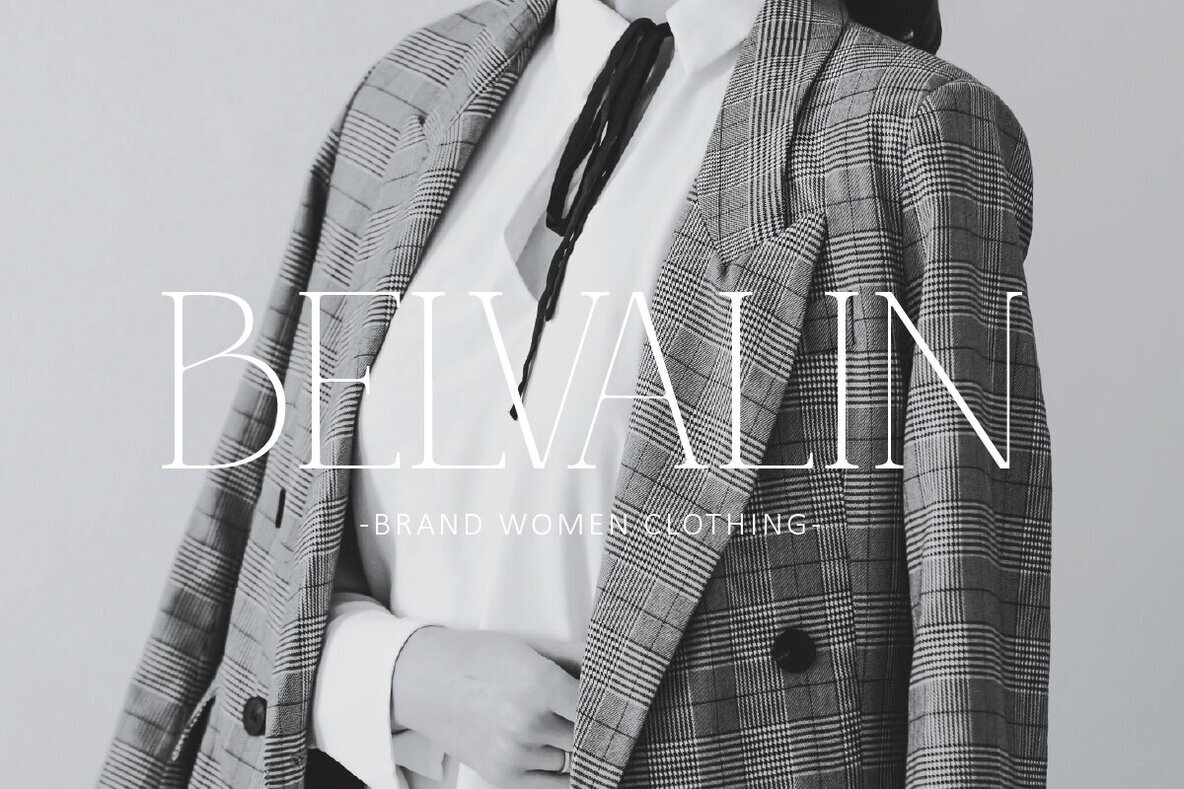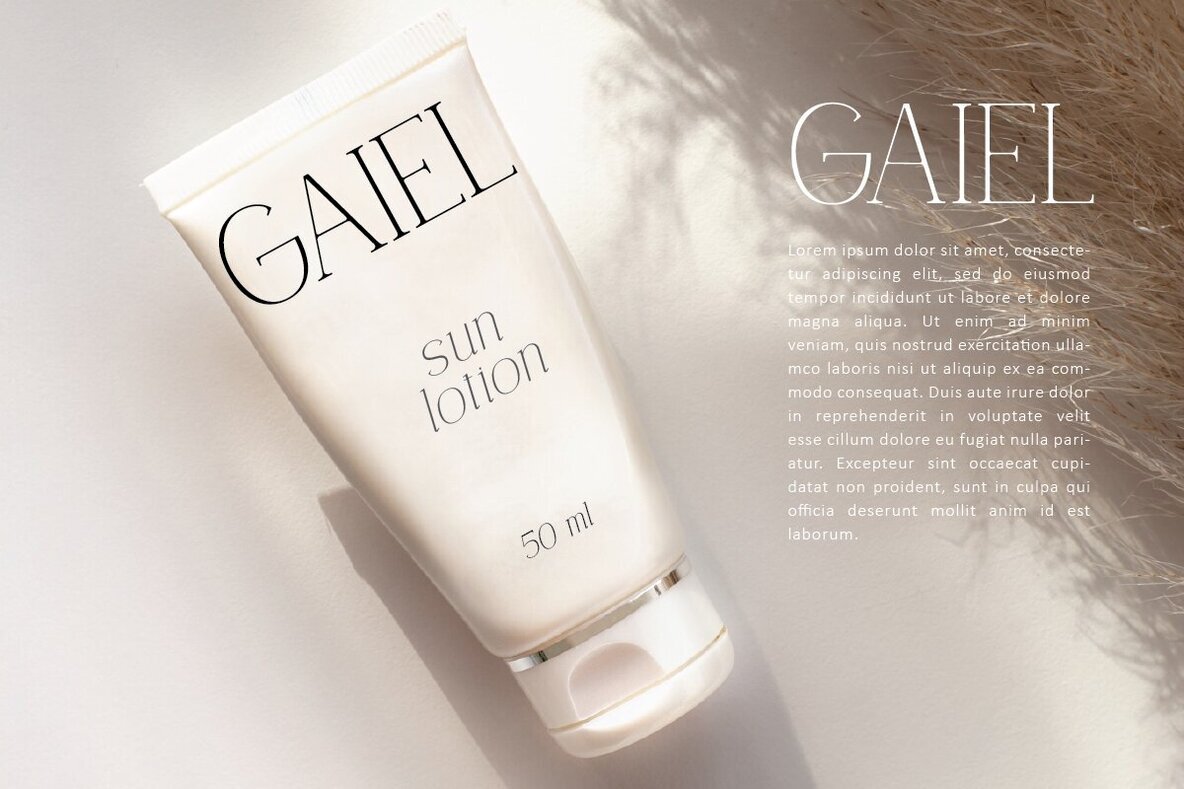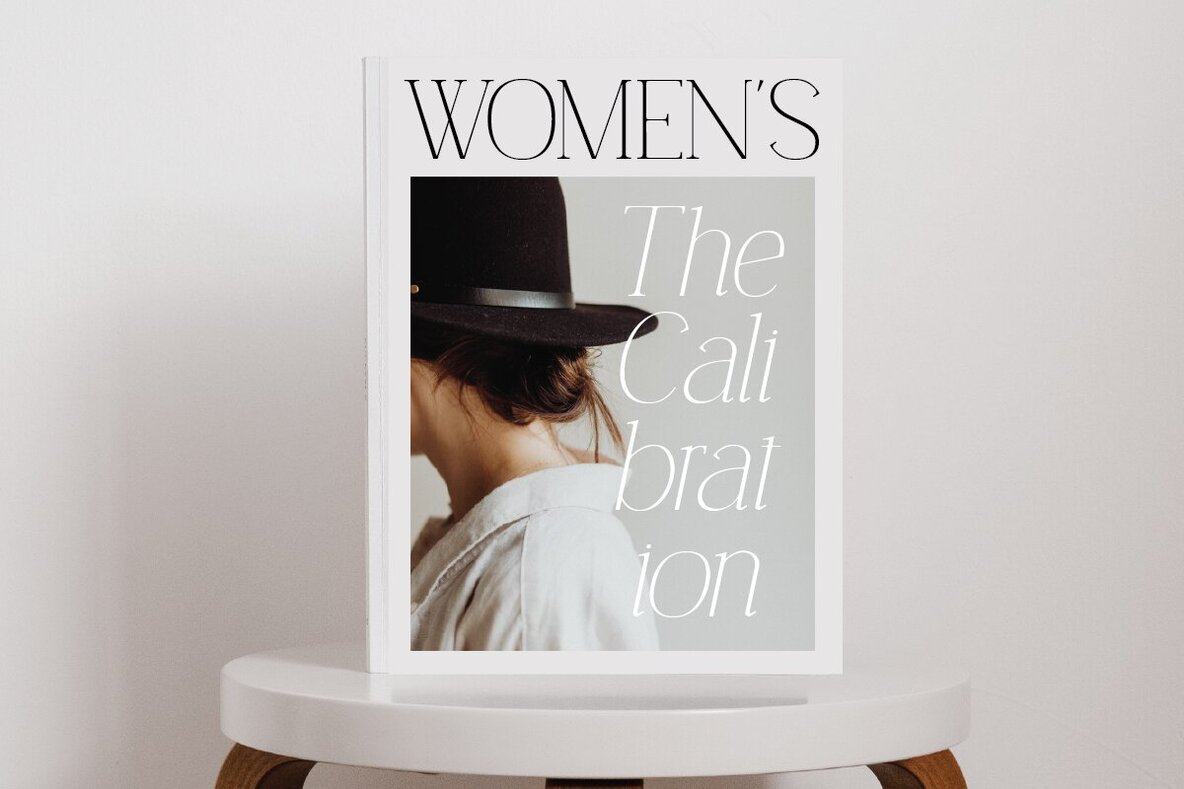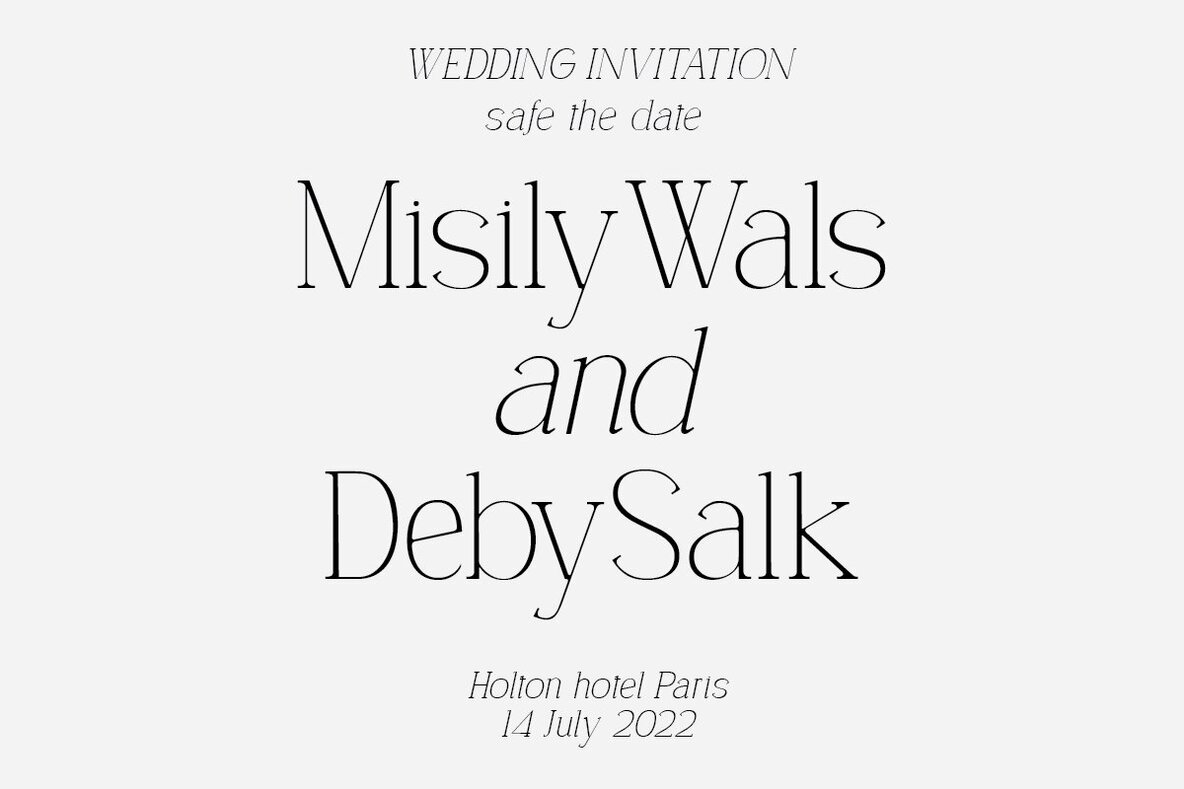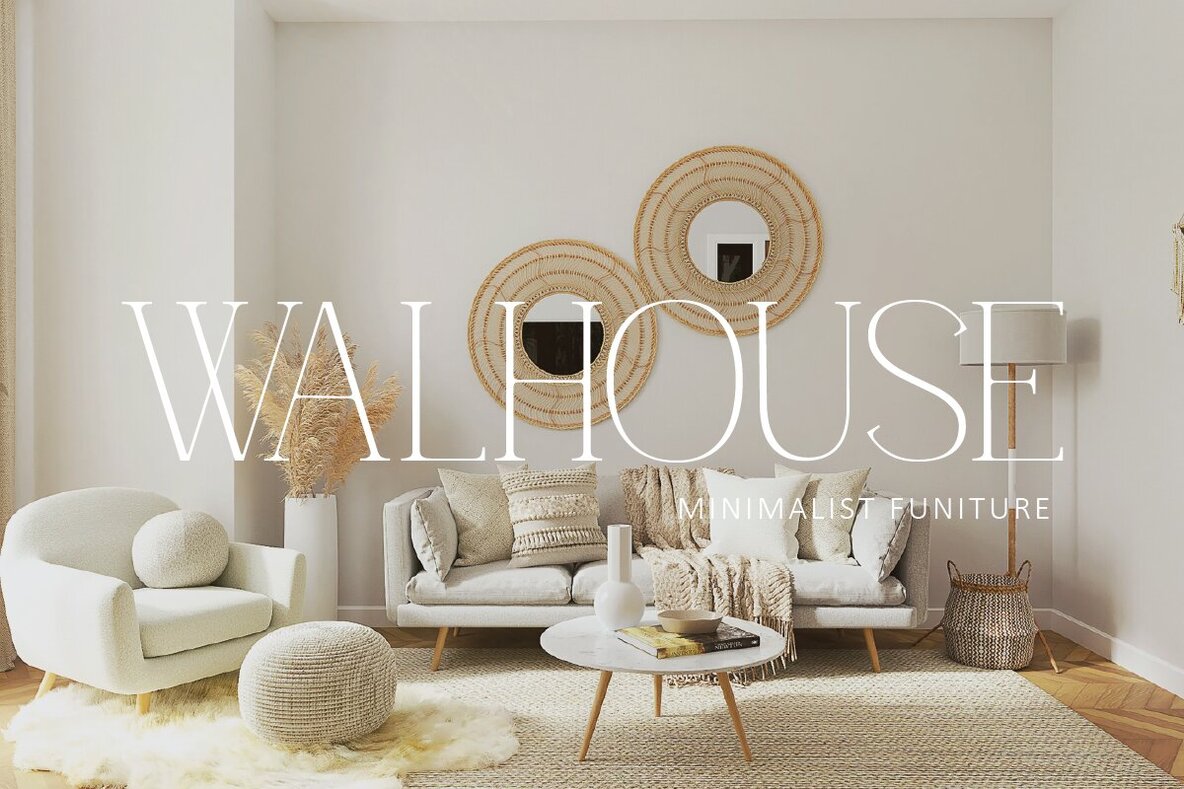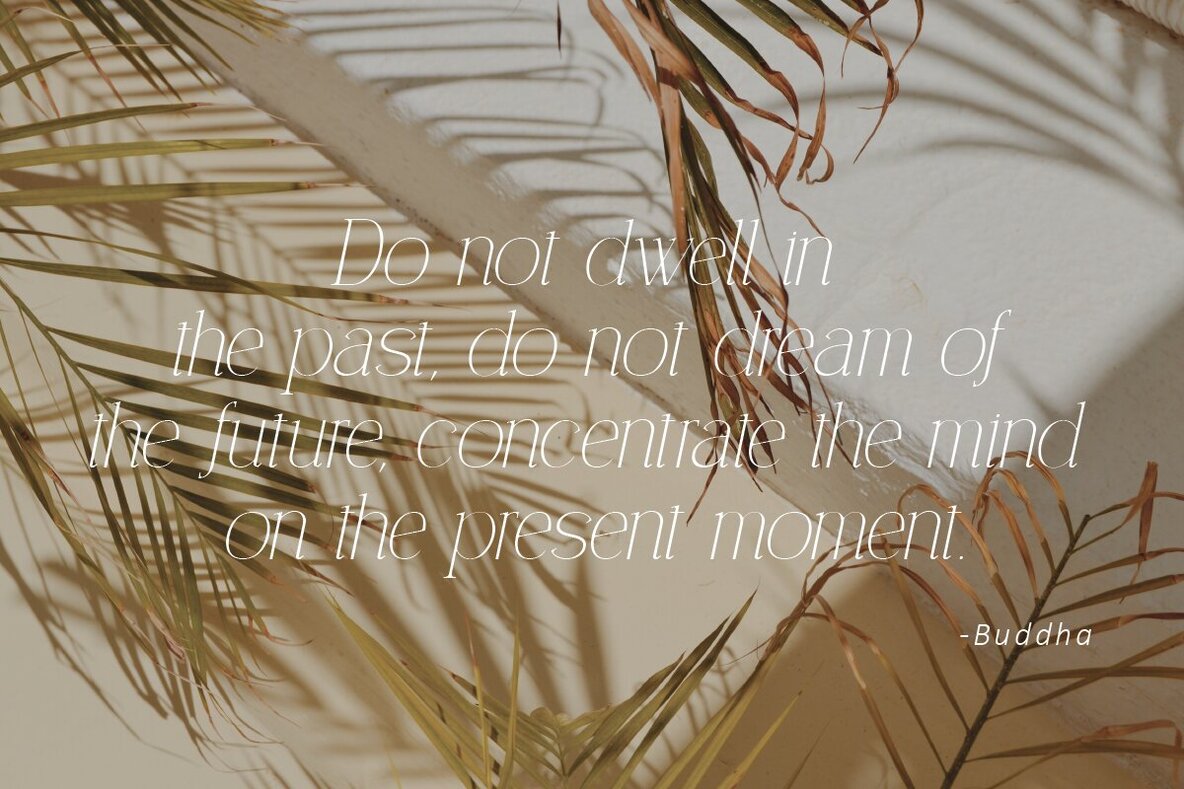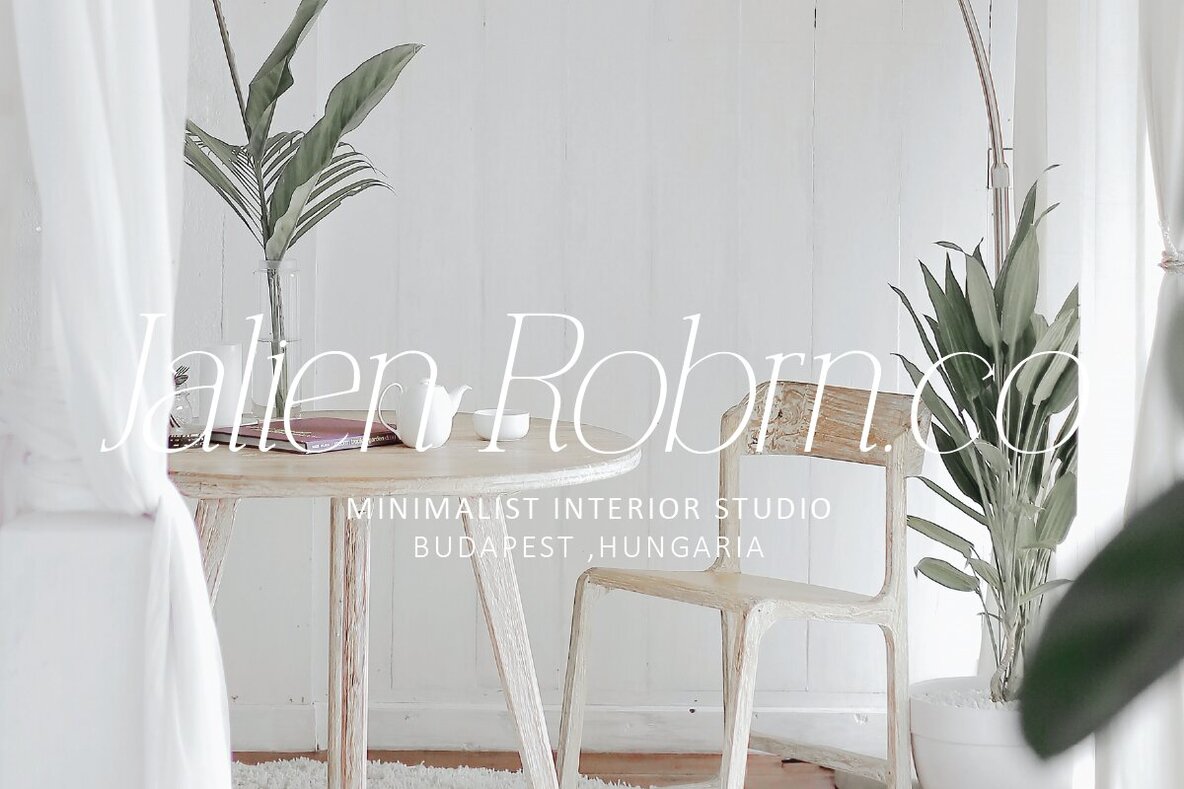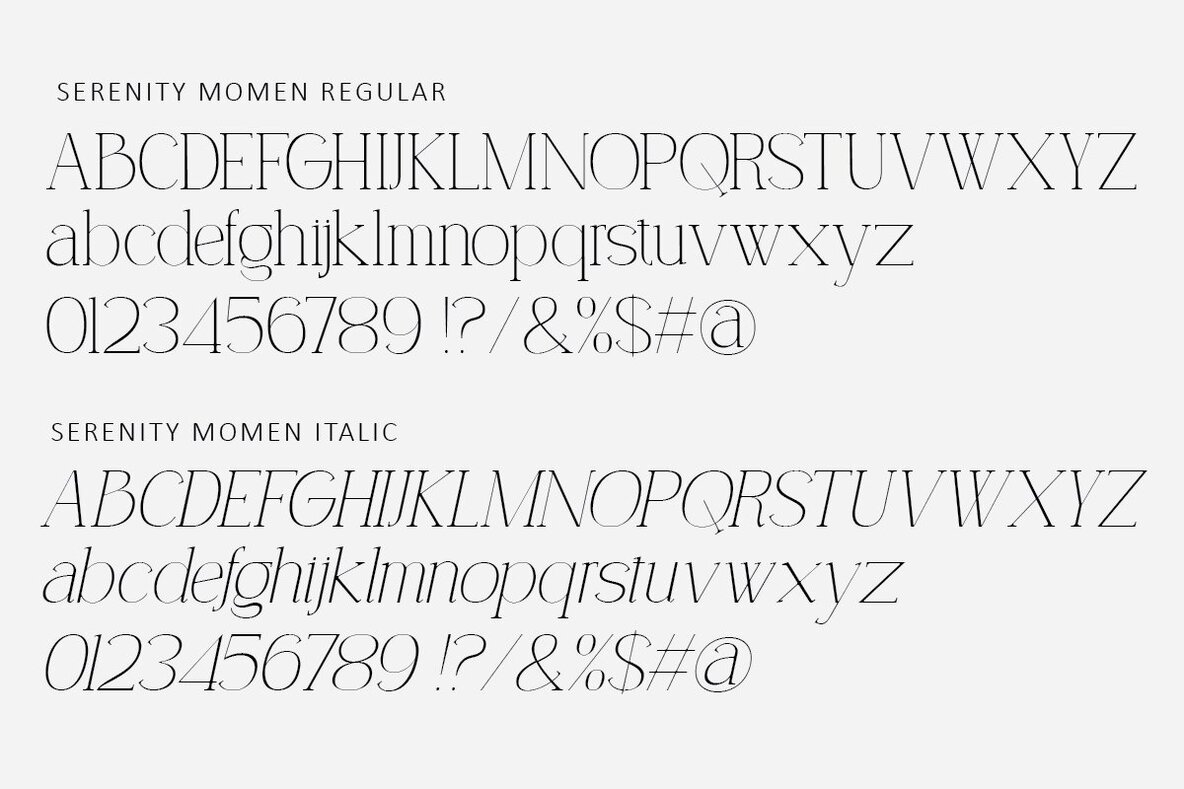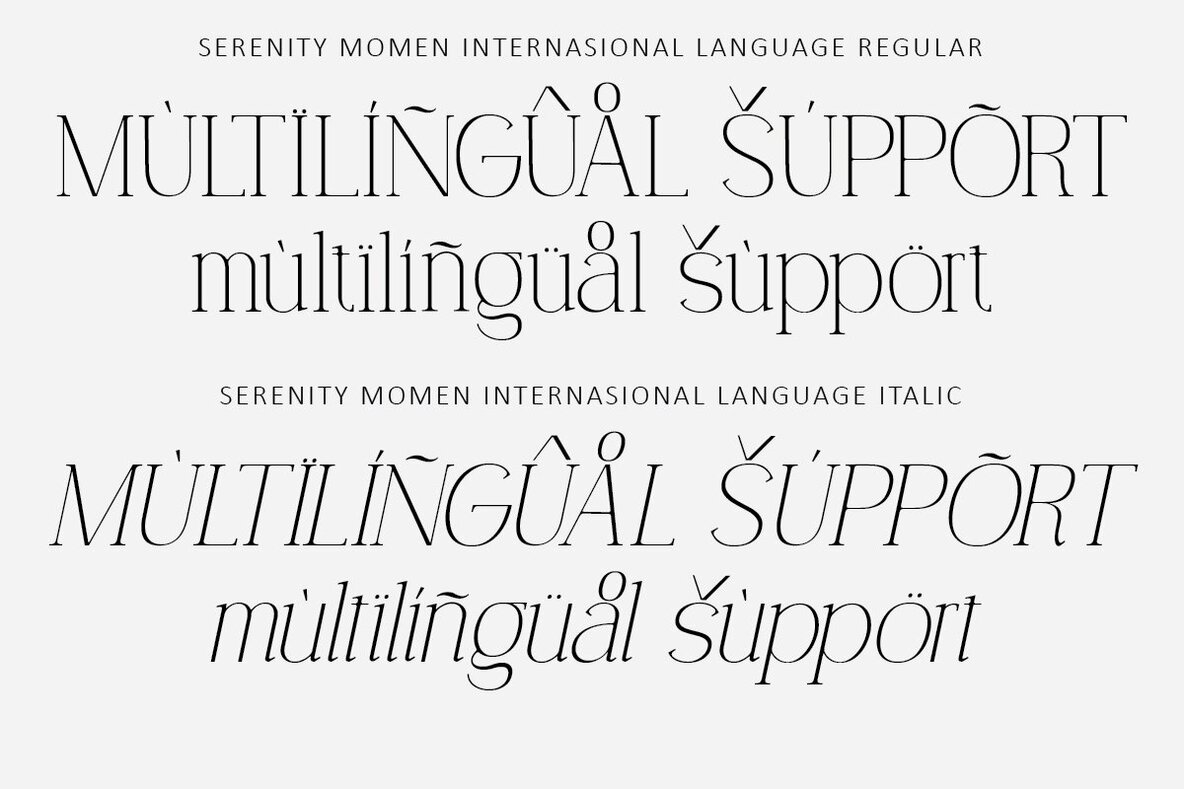
Serenity Moment Font
Serenity Moment Regular
Serenity Moment Italic
Serenity Moment italic
For graphic designers and creative directors seeking a versatile font, Serenity Moment offers an elegant blend of modern serif nuances. It features unique alternates, special glyphs, and ornamental touches, catering to both large and small scale projects. Tailored for editorial work, logo creation, fashion branding, and sophisticated packaging, Serenity Moment also shines as a stylish overlay on any visual content. Features:Serenity Moment: A Modern Serif Typeface with Flair
Character Support and Features